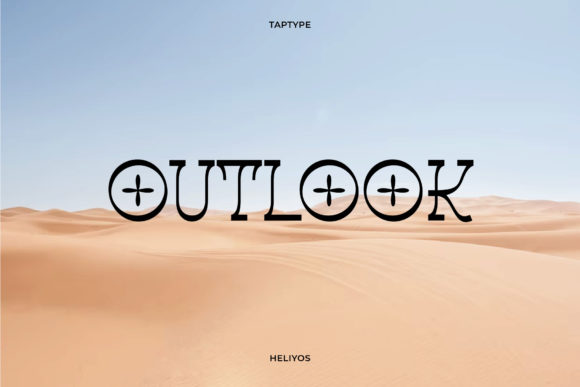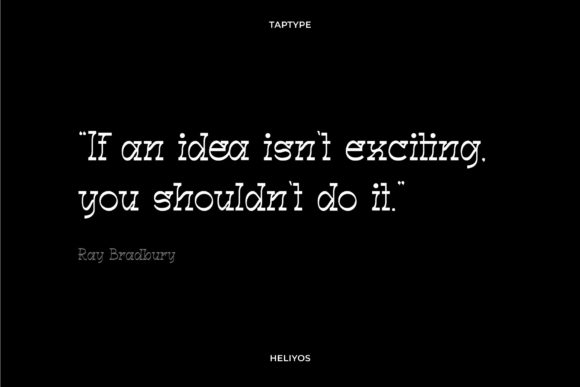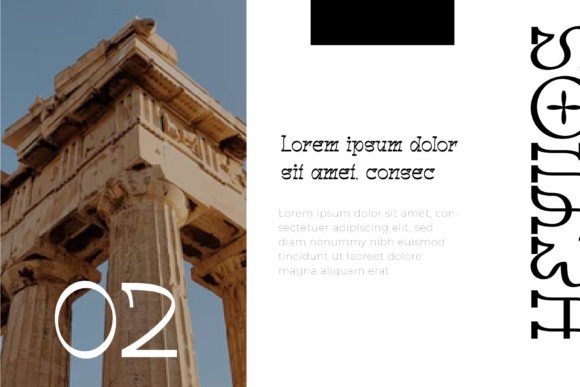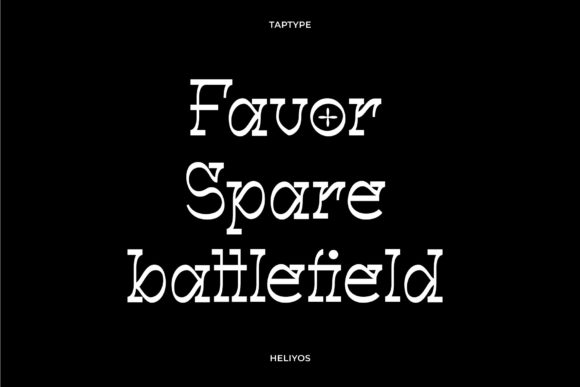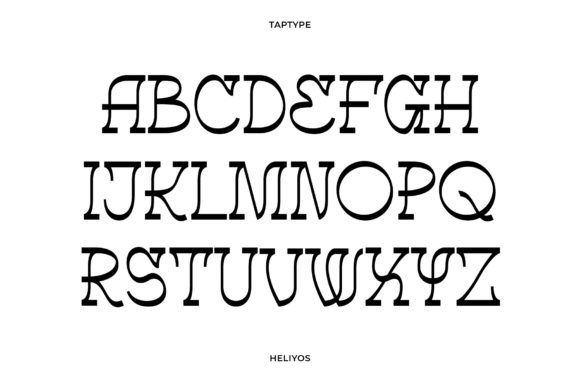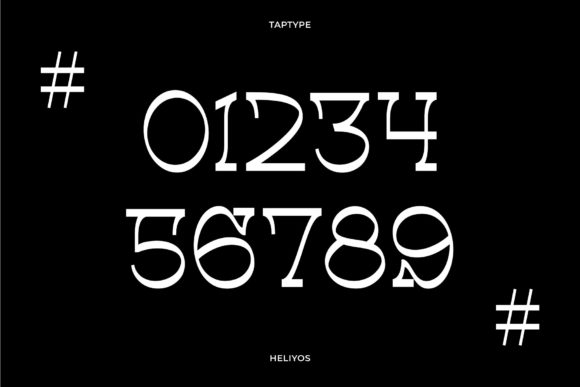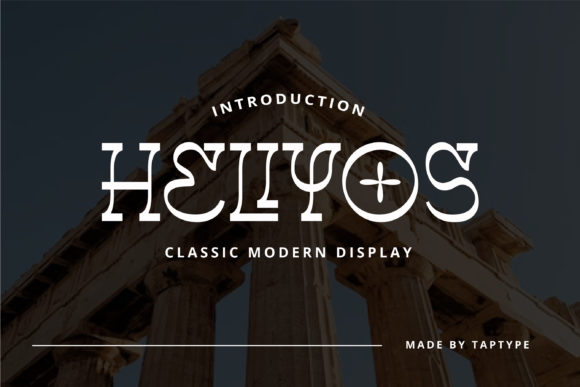
Introducing Heliyos Font: The Perfect Blend of Style and Elegance
In the world of typography, finding the right font can make all the difference in creating a lasting impression. For designers and crafters, a well-crafted font can elevate a project from ordinary to extraordinary. This is where Heliyos Font comes in – a stunning serif font that effortlessly blends stylish, modern, and classic elements. In this article, we’ll dive into the features and benefits of Heliyos Font, and explore how it can be the perfect addition to your design arsenal.
A Unique Blend of Style and Elegance
Heliyos Font is a masterful mix of modern and classic serif elements, resulting in a unique and sophisticated font that’s perfect for a wide range of projects. Its stylish and elegant appearance makes it an ideal choice for branding, logos, wedding invites, and cards. Whether you’re working on a high-end luxury brand or a whimsical craft project, Heliyos Font is sure to impress.
One of the standout features of Heliyos Font is its PUA (Private Use Area) encoding. This means that you can easily access all the glyphs and swashes, giving you complete creative control over your project. With PUA encoding, you can effortlessly navigate the font’s extensive character set, including alternate characters, ligatures, and ornaments. This feature makes it easy to add a personal touch to your designs, setting them apart from the rest.
Heliyos Font is incredibly versatile, making it suitable for a wide range of design applications. Here are just a few ideas to get you started:
- Branding and Logos: Create a lasting impression with a custom logo that exudes style and sophistication.
- Wedding Invites and Cards: Add a touch of elegance to your wedding stationery with Heliyos Font’s beautiful script.
- Packaging and Product Design: Elevate your product packaging with a font that’s both modern and timeless.
- Digital and Print Media: Use Heliyos Font in your digital and print media, including brochures, flyers, and social media graphics.
Why Choose Heliyos Font?
With so many fonts available, why choose Heliyos Font? Here are just a few reasons:
- Unique and Versatile: Heliyos Font offers a distinctive style that’s both modern and classic, making it perfect for a wide range of projects.
- Ease of Use: With PUA encoding, accessing glyphs and swashes is a breeze, saving you time and effort.
- High-Quality Design: Heliyos Font is crafted with attention to detail, ensuring a high-quality design that will elevate your projects.
Heliyos Font is a game-changer for designers and crafters looking for a stylish, modern, and classic serif font. Its unique blend of elegance and sophistication, combined with PUA encoding for easy access, makes it the perfect addition to your design arsenal. Whether you’re working on a branding project, wedding stationery, or packaging design, Heliyos Font is sure to impress. So why wait? Discover the endless design possibilities with Heliyos Font today!